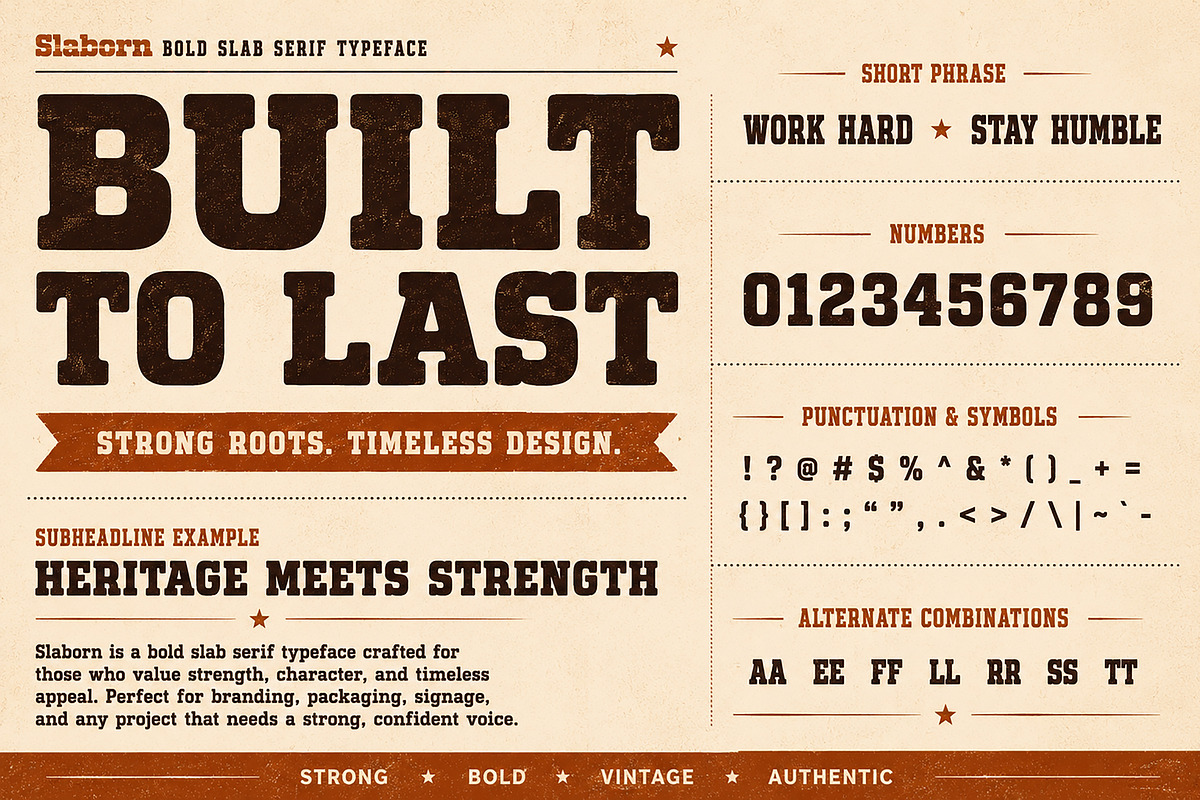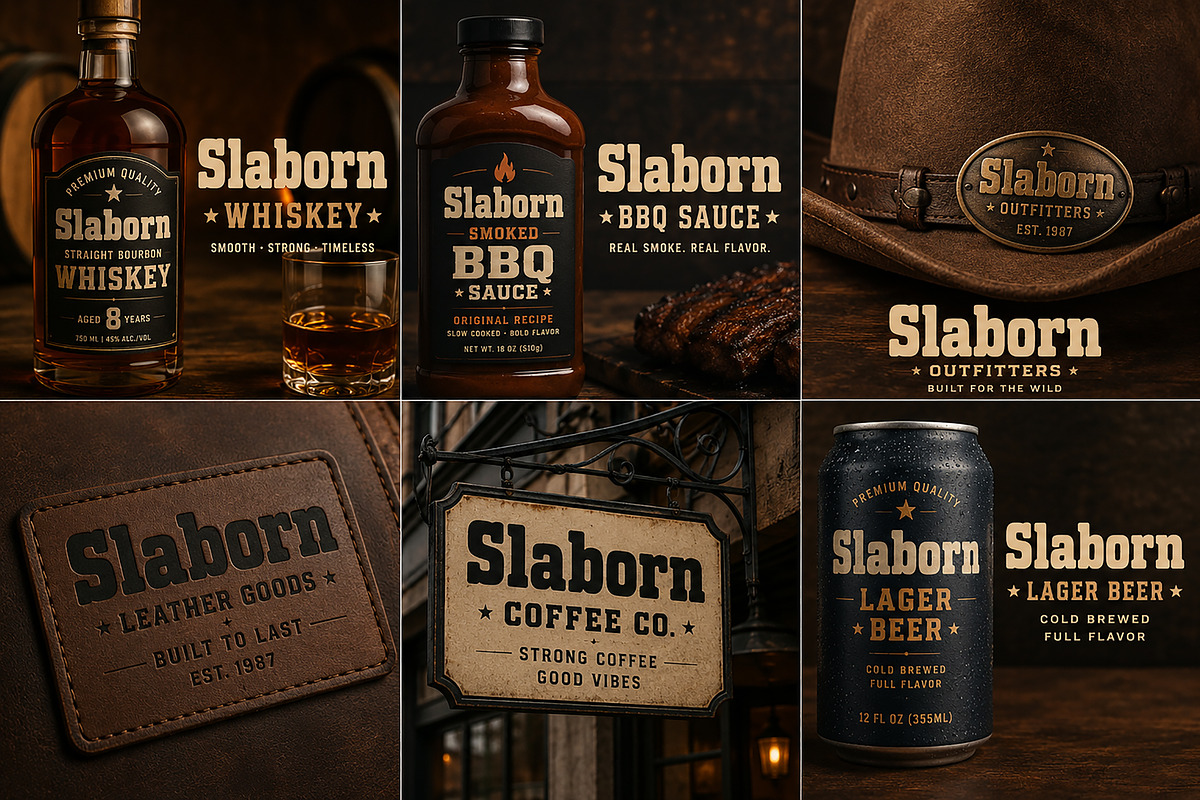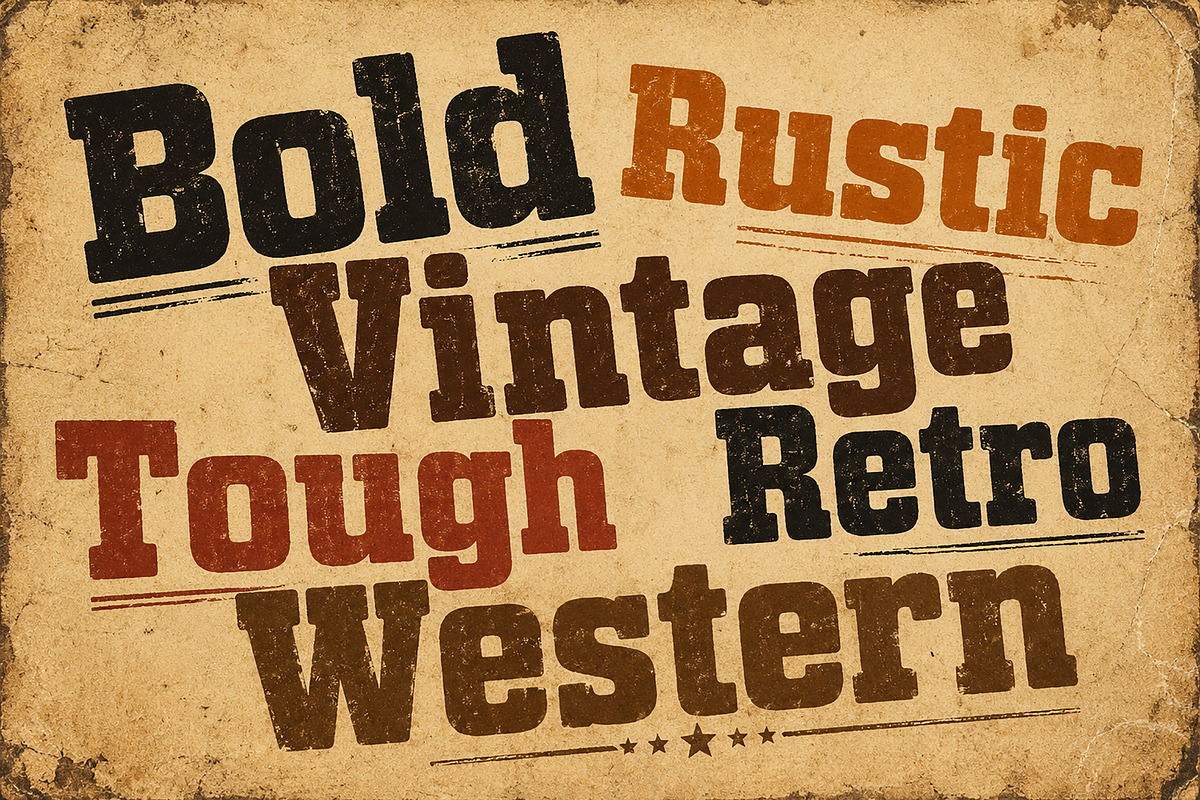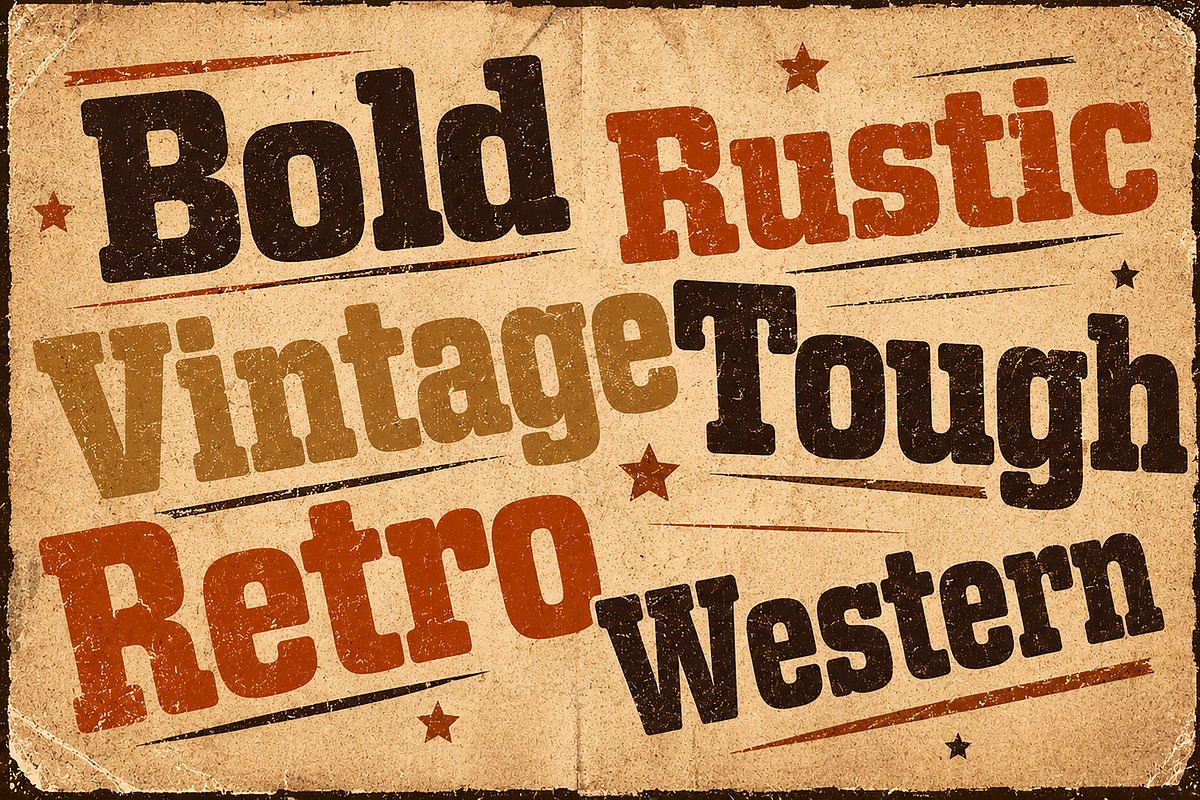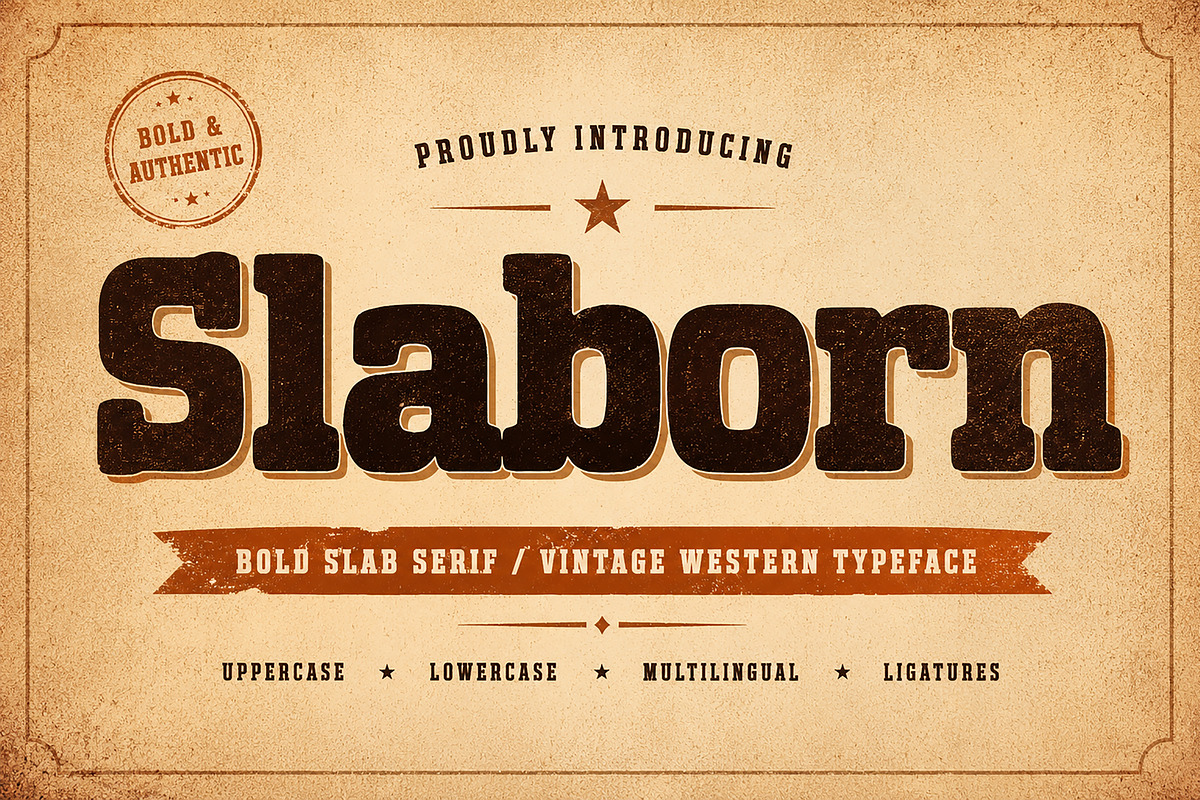
Slaborn
Slaborn is a bold vintage slab serif typeface inspired by classic western signage, rustic branding, and timeless Americana aesthetics. Designed with heavy strokes, strong serifs, and rugged curves, Slaborn delivers a powerful presence perfect for projects that demand strength, authenticity, and character.
Its bold construction and retro-inspired details make it an excellent choice for logos, packaging, posters, labels, signage, apparel branding, and editorial headlines. Whether you're creating whiskey labels, coffee branding, BBQ packaging, or vintage-inspired merchandise, Slaborn adds a raw and confident personality to every design.
Crafted to balance readability with strong visual impact, Slaborn works beautifully in both large headlines and branding-focused compositions.
Vintage Branding
Whiskey Labels
Western Posters
BBQ Packaging
Café Signage
Beer Can Designs
Apparel Logos
Retro Merchandise
Editorial Headlines
Rustic Product Packaging
Alternate Characters
Bring bold heritage, rugged charm, and timeless craftsmanship into your next creative project with Slaborn.